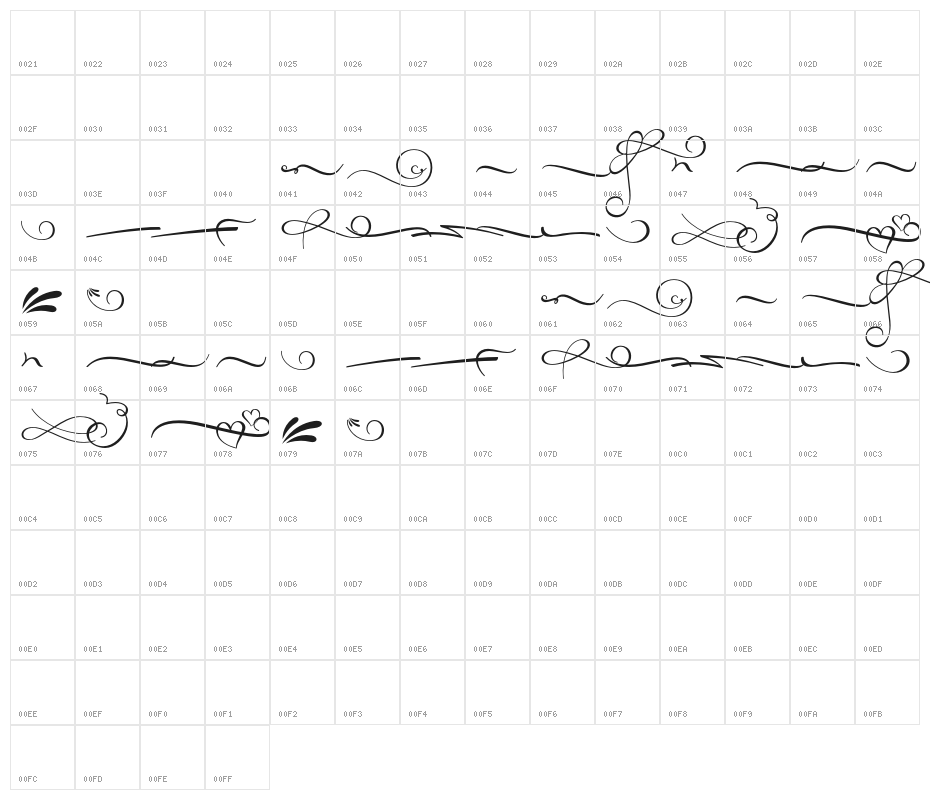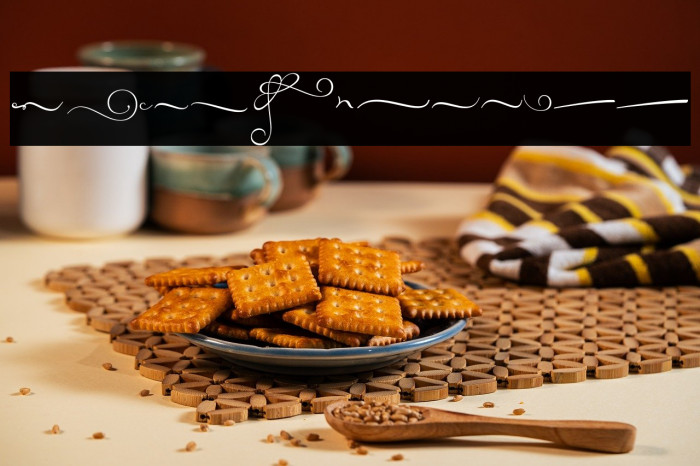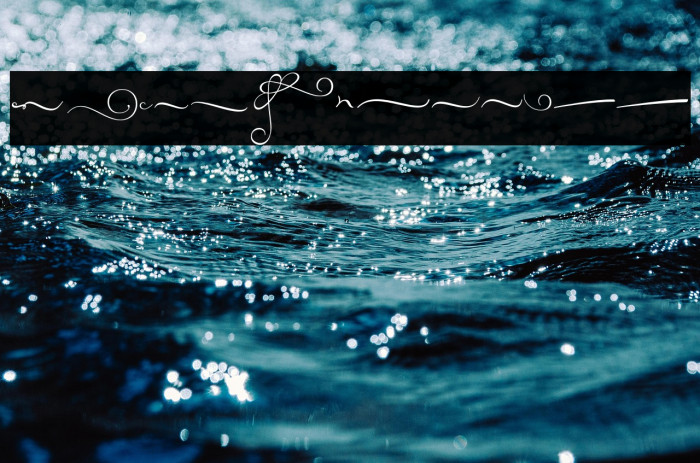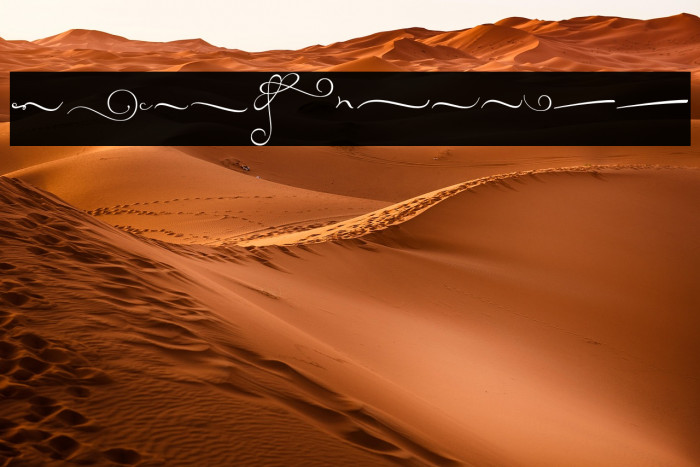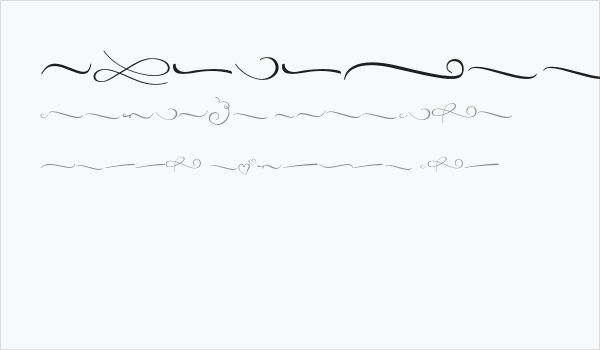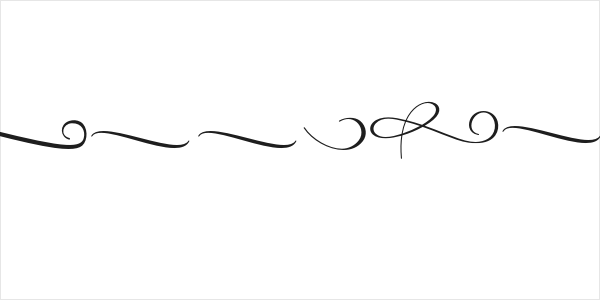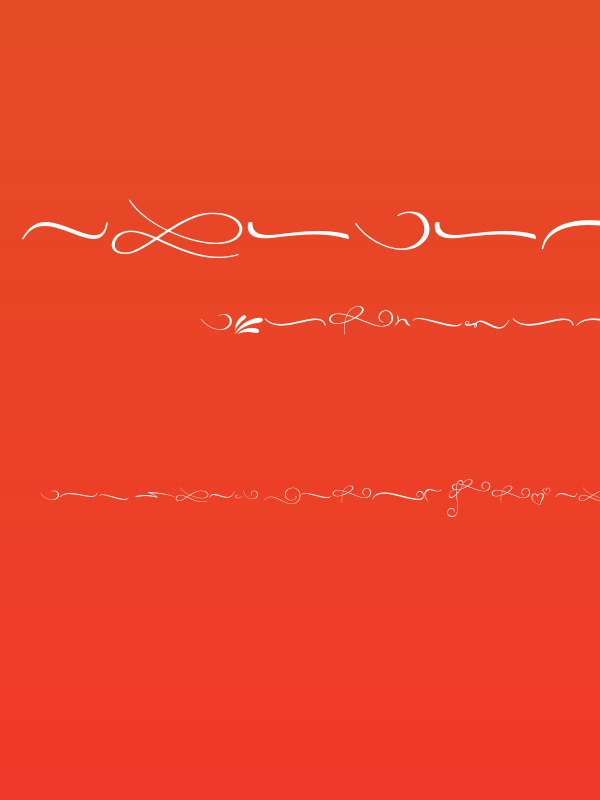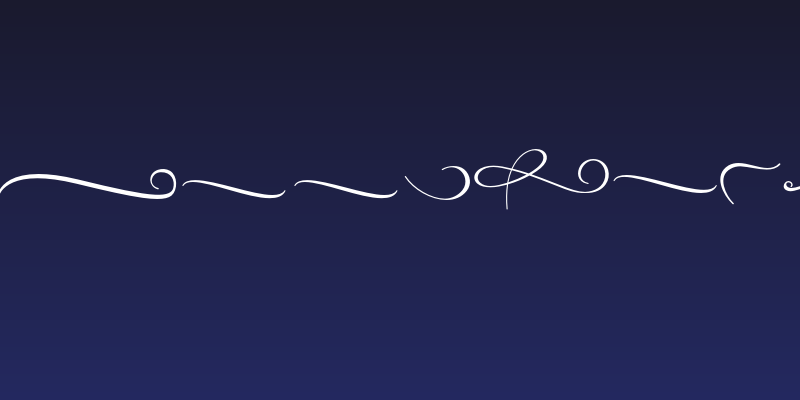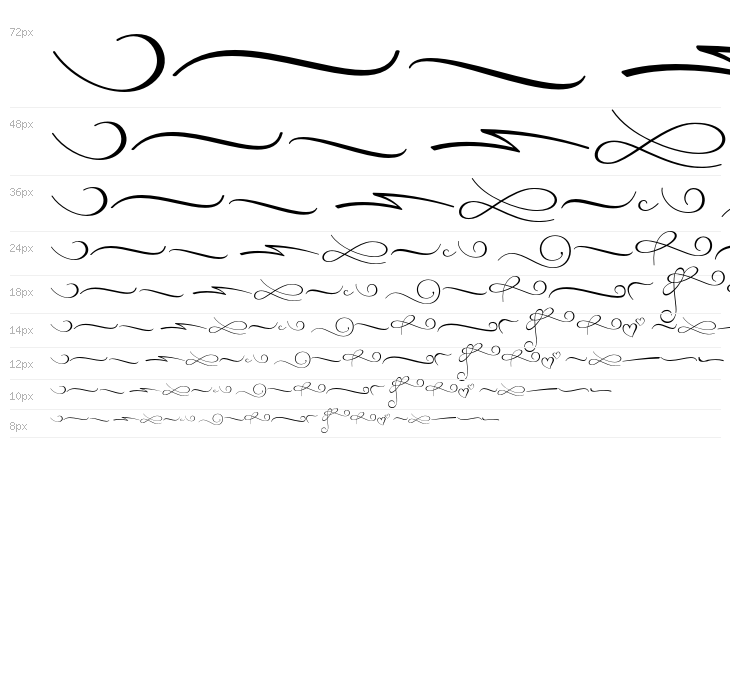
JustSweetOrnament Font
This collection of decorative ornaments features intricate and elegant flourishes, swirls, and embellishments. Each design is meticulously crafted with fine lines and delicate curves, creating a sense of sophistication and charm. The ornaments include a variety of motifs such as loops, curls, and heart shapes, making them ideal for adding a touch of elegance to any project. The designs are versatile and can be used to enhance invitations, greeting cards, or any creative work that requires a decorative touch. The overall style is whimsical and romantic, perfect for projects that aim to convey a sense of beauty and refinement.
Intricate and elegant decorative ornaments with fine lines and delicate curves.
- Font: JustSweetOrnament
- Proposed Projects: Ideal for wedding invitations, greeting cards, scrapbooking, and decorative borders.
- Weight: Light
- Overall Style: Whimsical and Romantic
- Use Case: Decorative elements